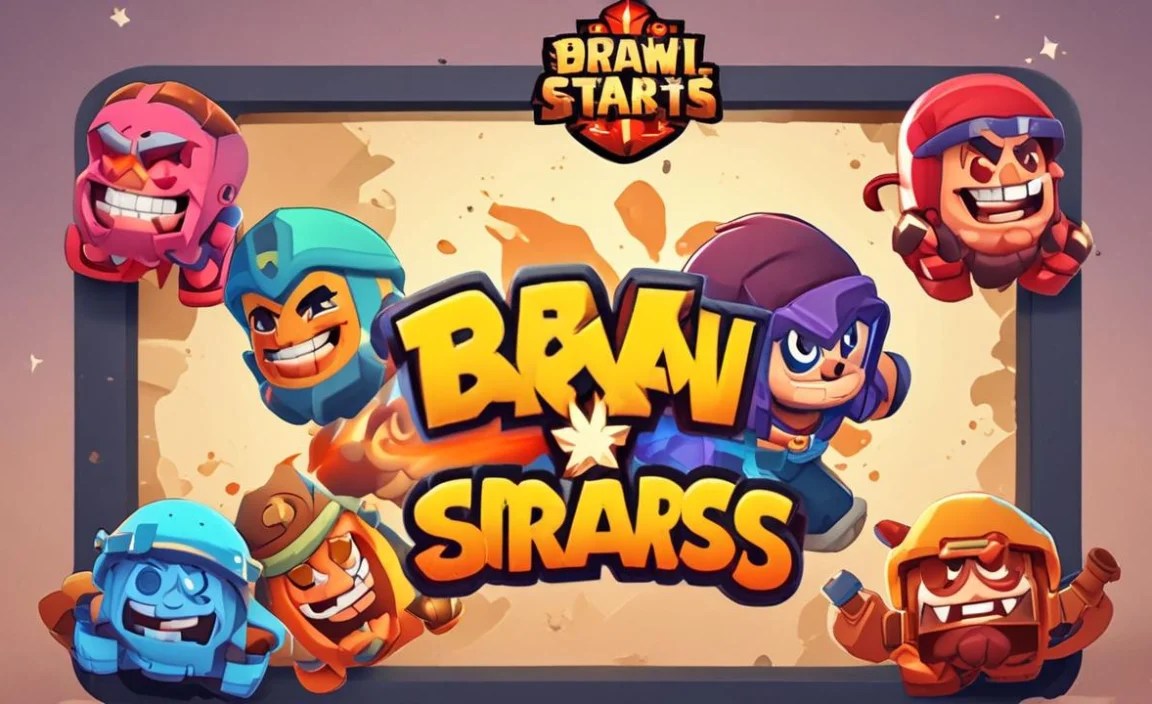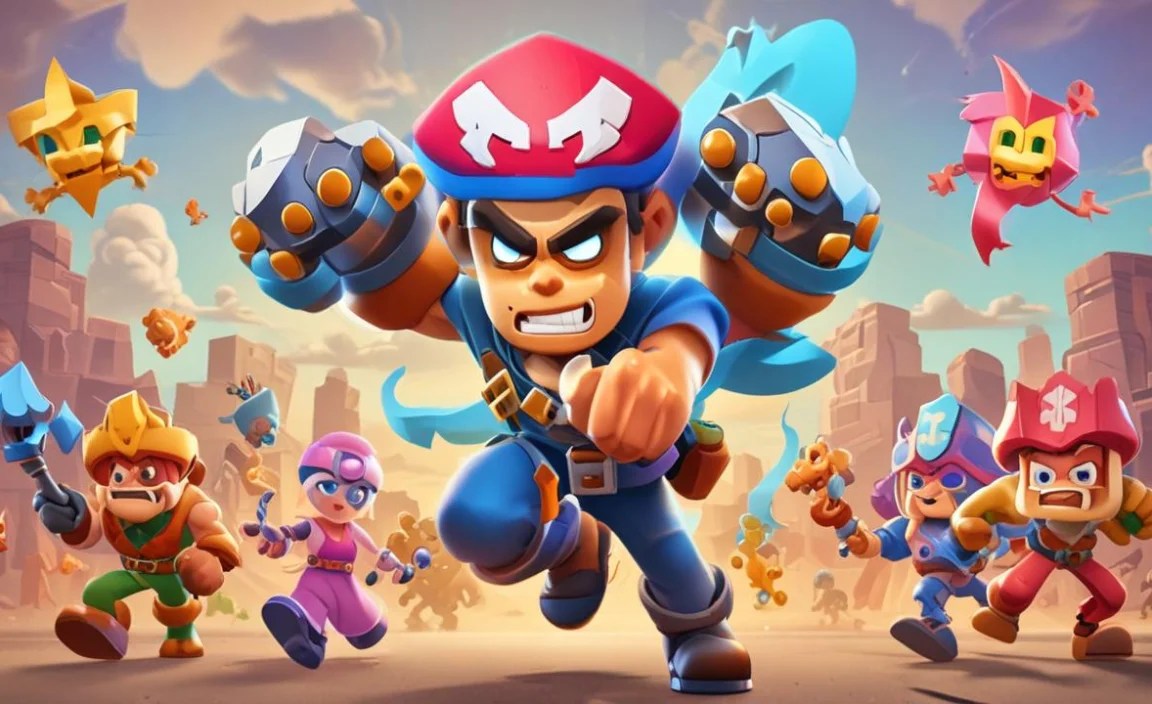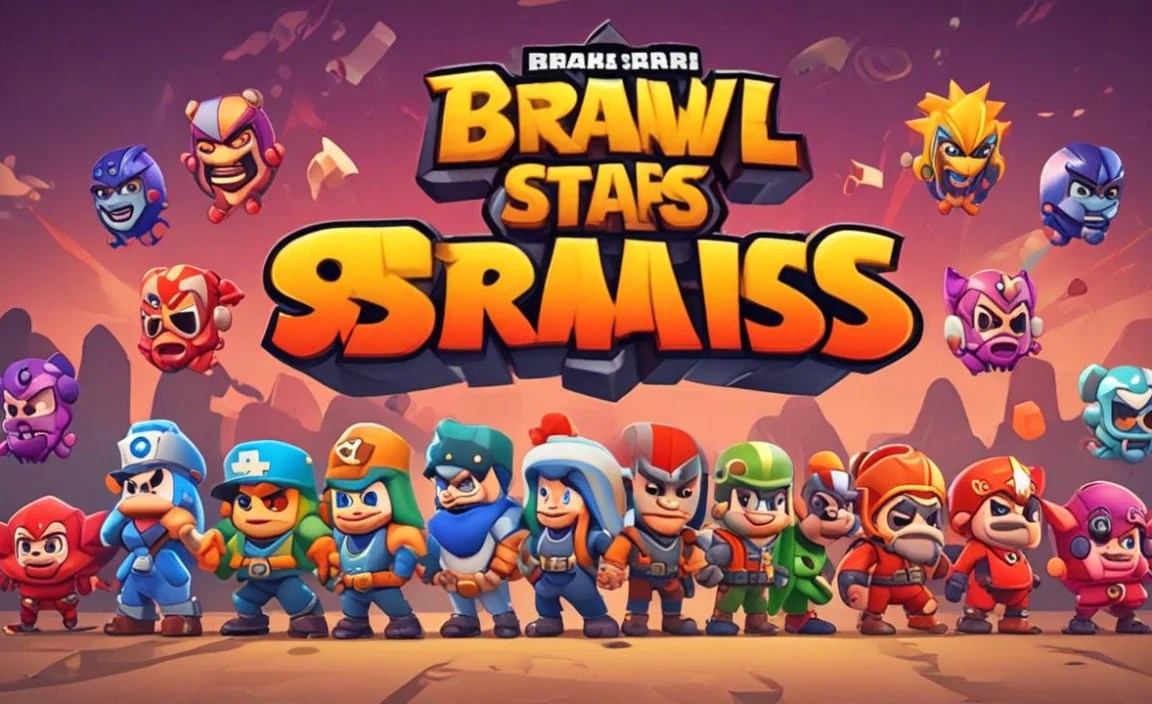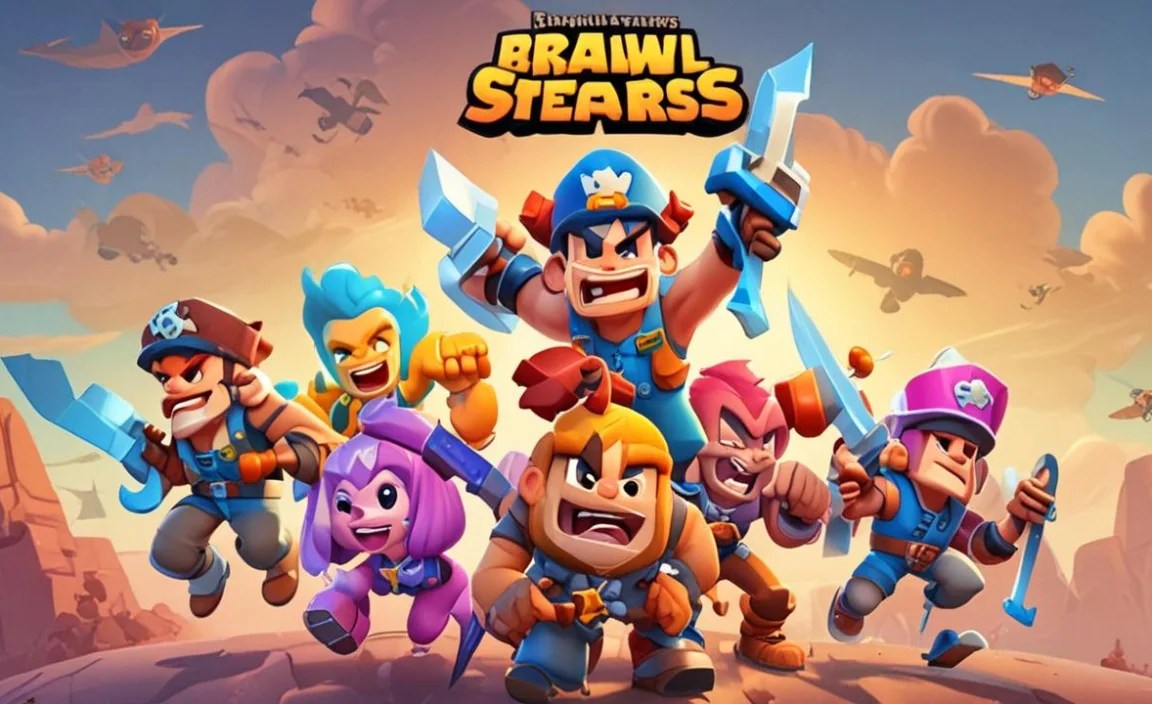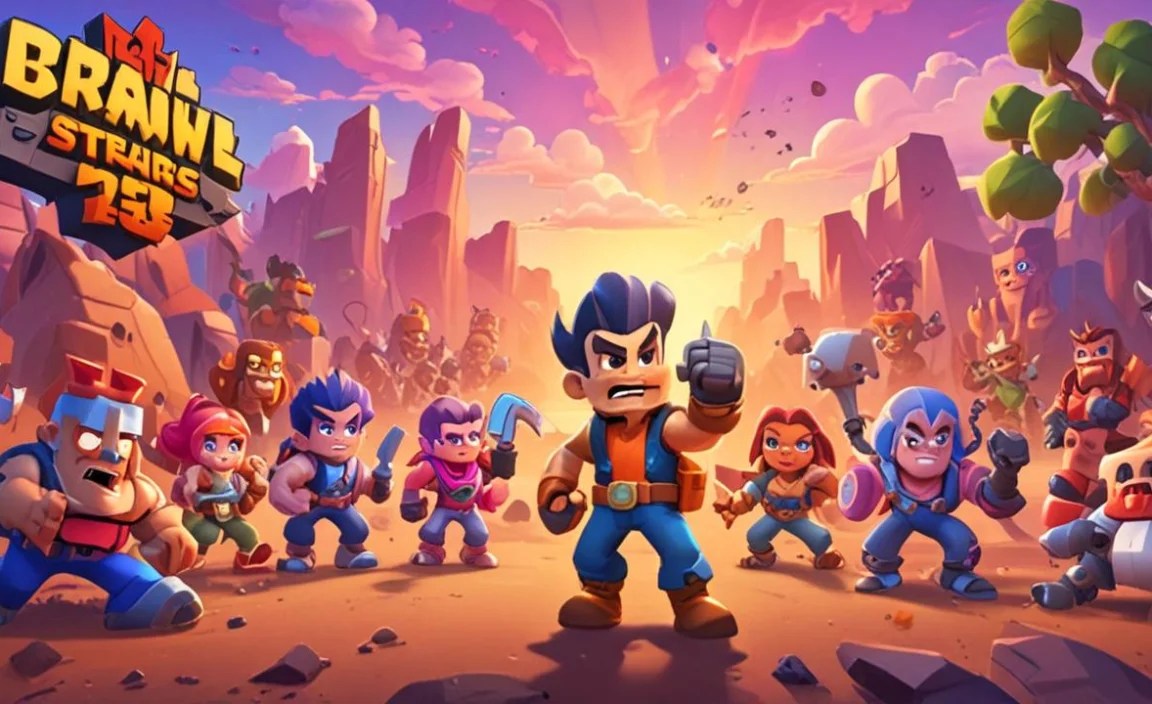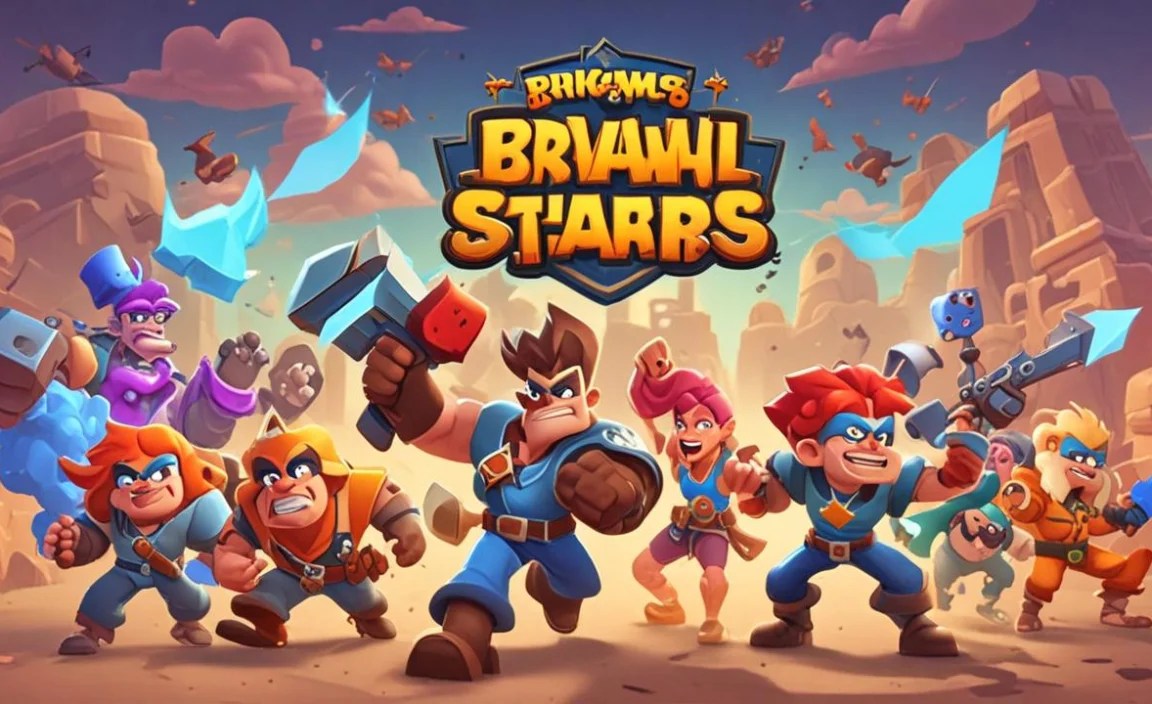
Brawl Stars is a popular mobile game developed by Supercell, featuring a variety of unique characters, or “brawlers,” that players can control in fast-paced multiplayer matches.
To give the game its distinct personality, Supercell chose the “Nougat” font for its logo. This font is known for its bold, retro style and is part of the game fonts used throughout the Brawl Stars universe, adding to the playful and vibrant feel of the game.
Designed by Dieter Steffmann, Nougat is perfect for creating memorable, eye-catching visuals, making it ideal for use in various projects, from logos to team names. The font is free to use, making it a great option for both personal and professional designs.
| Name | Brawl Stars Font (Nougat) |
| Style | Retro, Display |
| Designer | Dieter Steffmann |
| Type | Display |
Brawl Stars Font Family Includes
- Nougat
Where Brawl Stars Font Is In Use
- Game Logos: Used in the official Brawl Stars logo, making it instantly recognizable to fans.
- Character Names: Seen in the names of brawlers within the game, adding to the character’s personality.
- Marketing Material: Perfect for promoting Supercell games and gameplay.
- YouTube & Streaming: Used by content creators to brand their Brawl Stars videos and streams.
- Merchandise: Appears on custom T-shirts, phone cases, and other team items.
- Fan Art & Graphics: Commonly used by fans to create visuals and posters for clans or brawl tournaments.
- Gaming Websites: Featured on websites dedicated to Brawl Stars, helping to establish the brand identity.
The Brawl Stars font, Nougat, is an essential part of the branding for the popular Supercell game, lending it a unique and retro feel.
Whether you’re creating team logos, game-related content, or personal merchandise, this free font is perfect for adding a bold, nostalgic touch. From gameplay videos to custom clan designs, this versatile font can elevate your project to match the energy and excitement of Brawl Stars.
1.What Font Is Used In The Brawl Stars Logo?
The Nougat font is used in the Brawl Stars logo, giving it its bold and dynamic look.
3.What Other Games Use Similar Fonts?
Clash Royale uses a similar game font that also shares retro and bold characteristics.
5.What Makes The Nougat Font Unique?
The Nougat font stands out due to its retro display style and bold weight, making it ideal for logos and headlines.